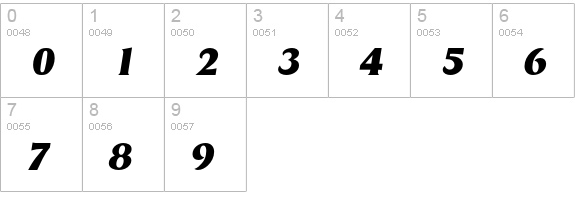
Introducing DragonEF-ExtraBoldItalic, a captivating and dynamic font that commands attention with its bold and italicized appearance. This unique typeface exudes elegance and power, making it perfect for headlines, titles, and any design project that requires a touch of sophistication. The DragonEF-ExtraBoldItalic font combines the classic elements of traditional typography with a modern twist, creating a visually striking and memorable look. Its strong and slanted characters convey a sense of strength and authority, while still maintaining a sense of style and flair. What's even better is that DragonEF-ExtraBoldItalic is available for free download at FontsMarket.com. This means that you can easily access this impressive font and incorporate it into your projects without any cost. Whether you're a designer looking to add a bold touch to your creations or a business owner seeking a standout font for branding, DragonEF-ExtraBoldItalic is sure to make a lasting impression. Don't miss out on the opportunity to elevate your designs with the DragonEF-ExtraBoldItalic font. Download it for free today and experience the impact of this exceptional typeface for yourself.